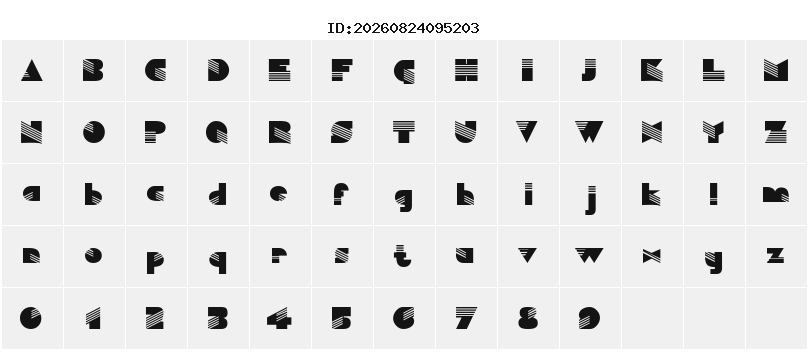
SaminoaDisplay Preview
About SaminoaDisplay.ttf
SaminoaDisplay.ttf is a modern, elegant sans-serif font designed for ultimate readability and visual harmony. Perfect for branding, headlines, web design, and print materials.